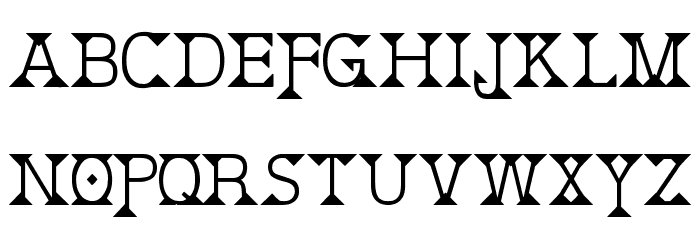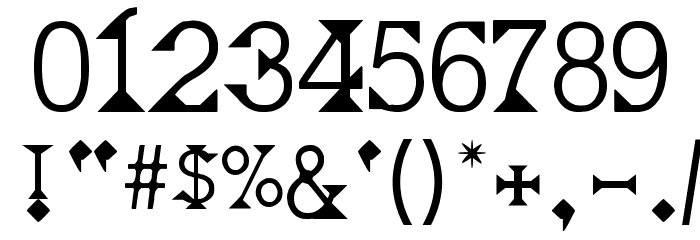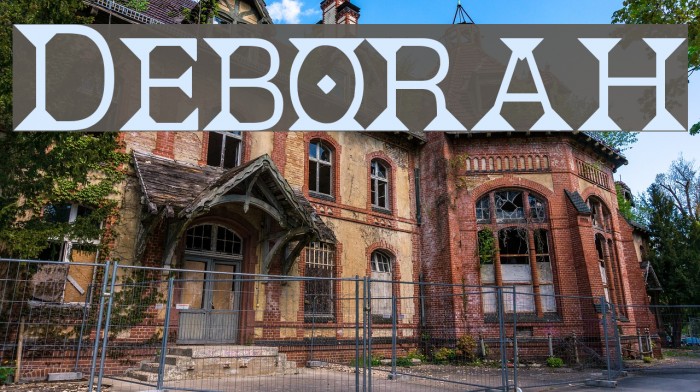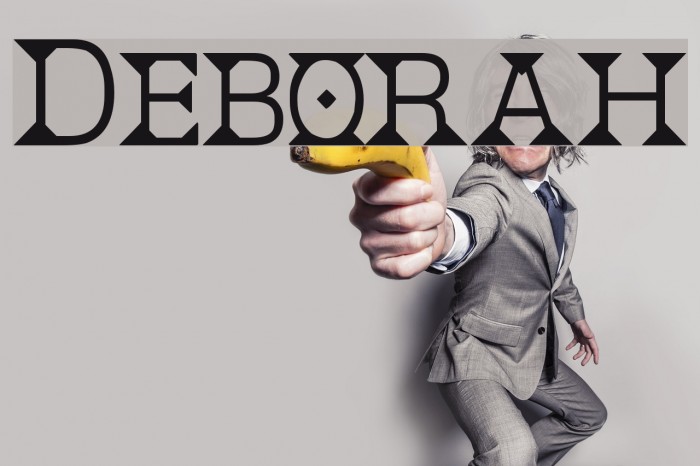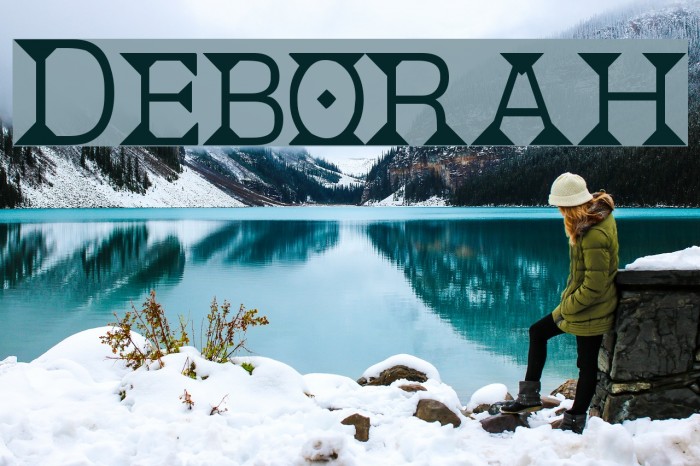
Deborah Font
This font features a bold, geometric design with high contrast between thick and thin strokes. The characters are characterized by sharp, angular serifs and a distinctive diamond shape within the counters of letters like 'O' and 'Q'. The overall appearance is striking and modern, with a touch of vintage flair. The uppercase and lowercase letters maintain a consistent style, and the numerals are equally bold and geometric, making them stand out. Special characters are designed with the same angular and bold characteristics, ensuring a cohesive look across all glyphs.
A bold, geometric font with high contrast and angular serifs.
- Proposed Projects: Ideal for branding, poster design, and headlines where a strong, modern aesthetic is desired.